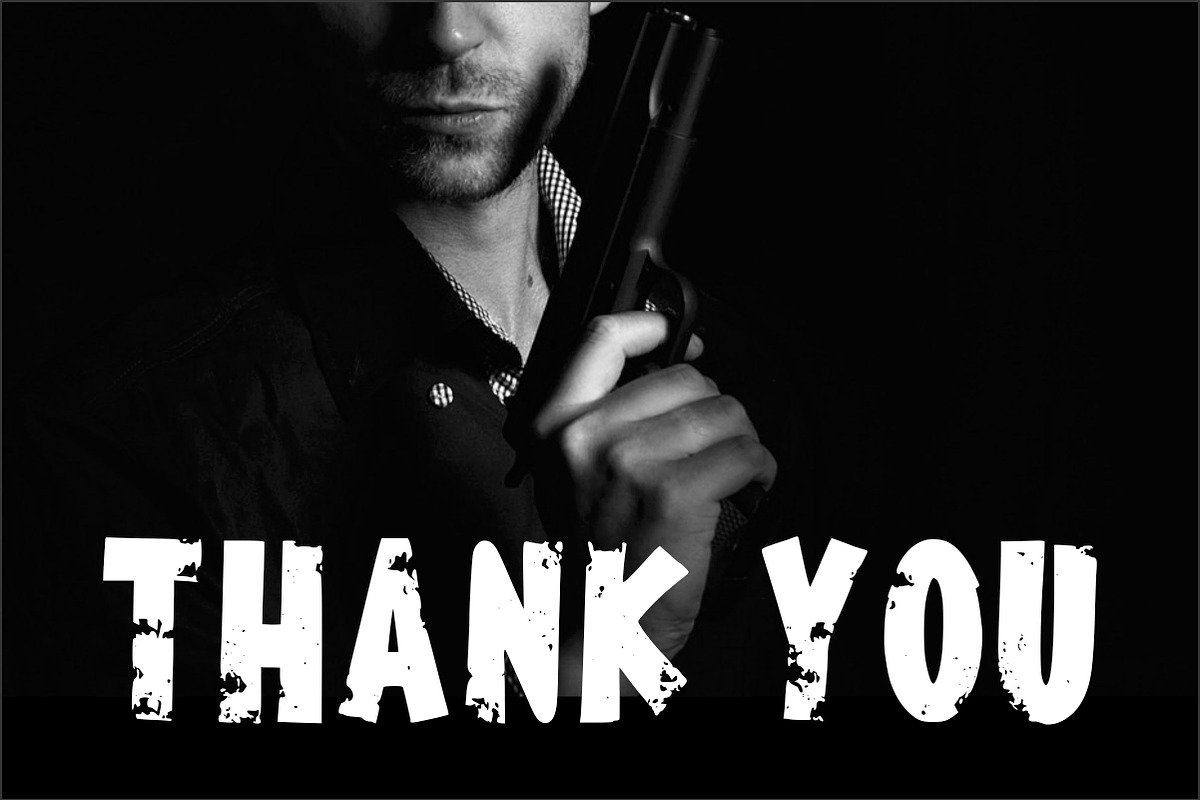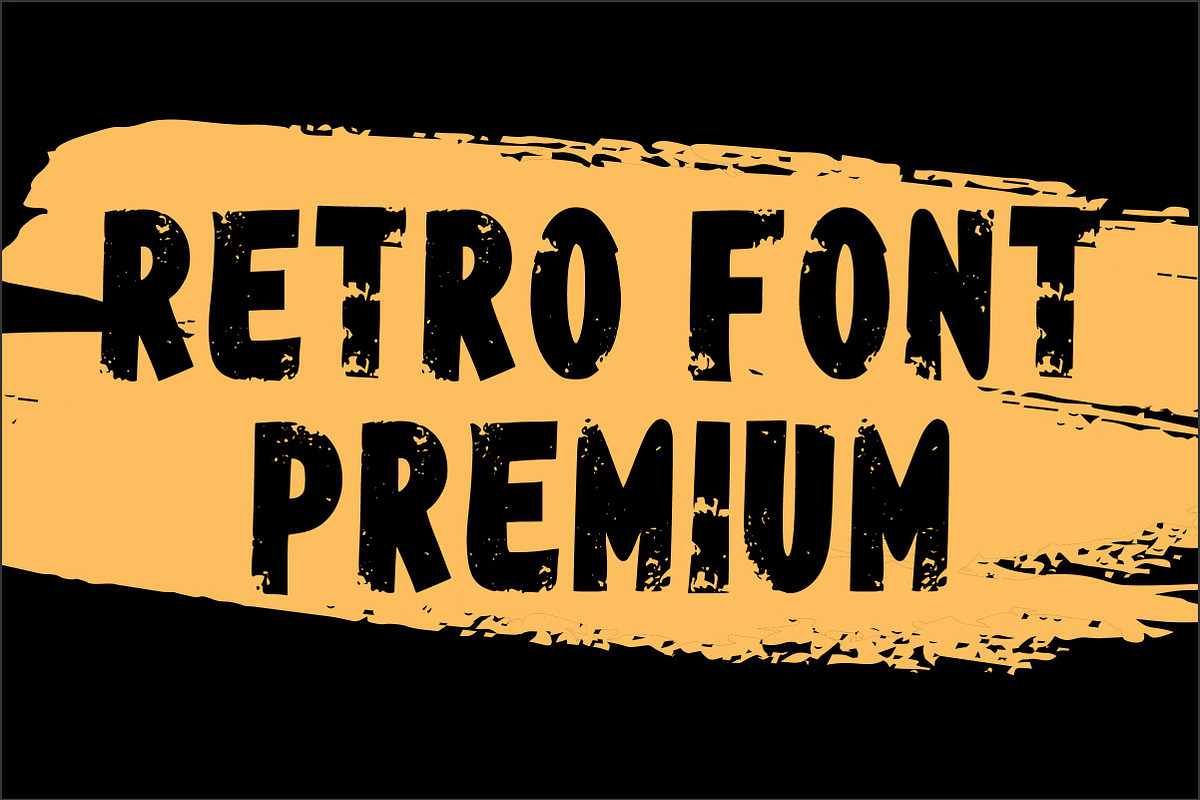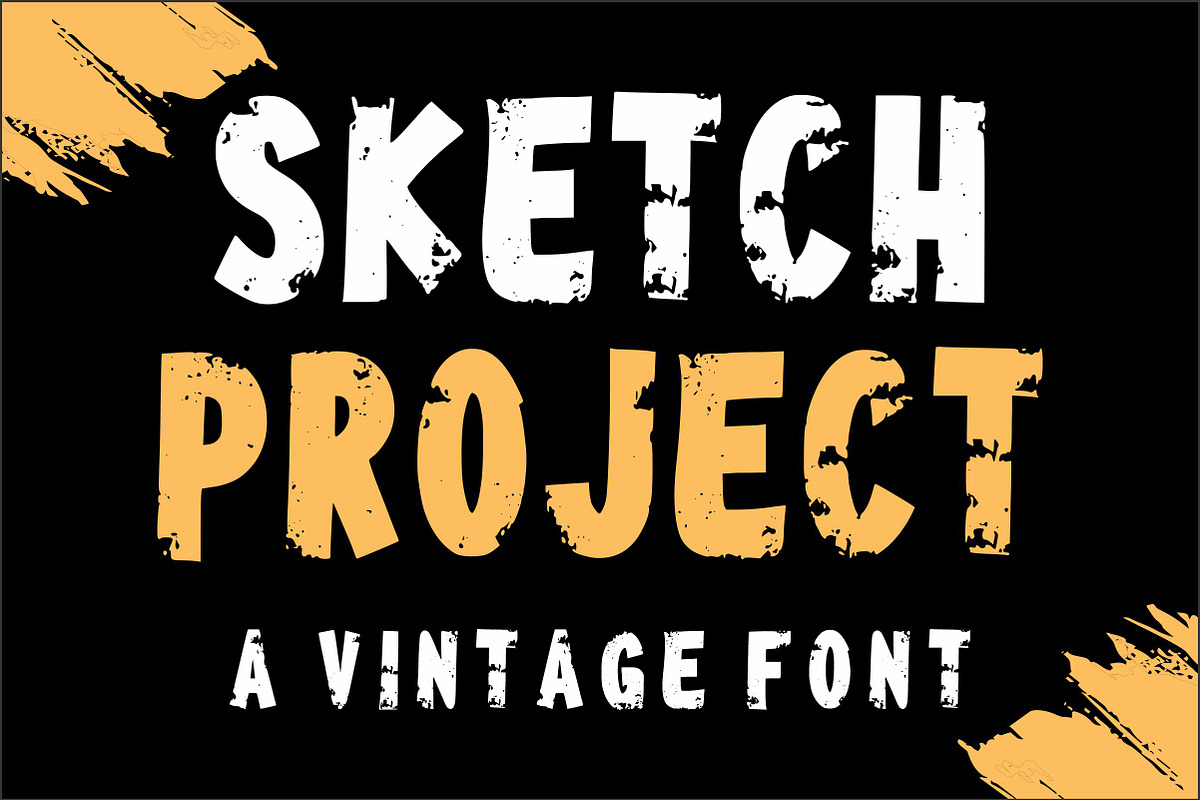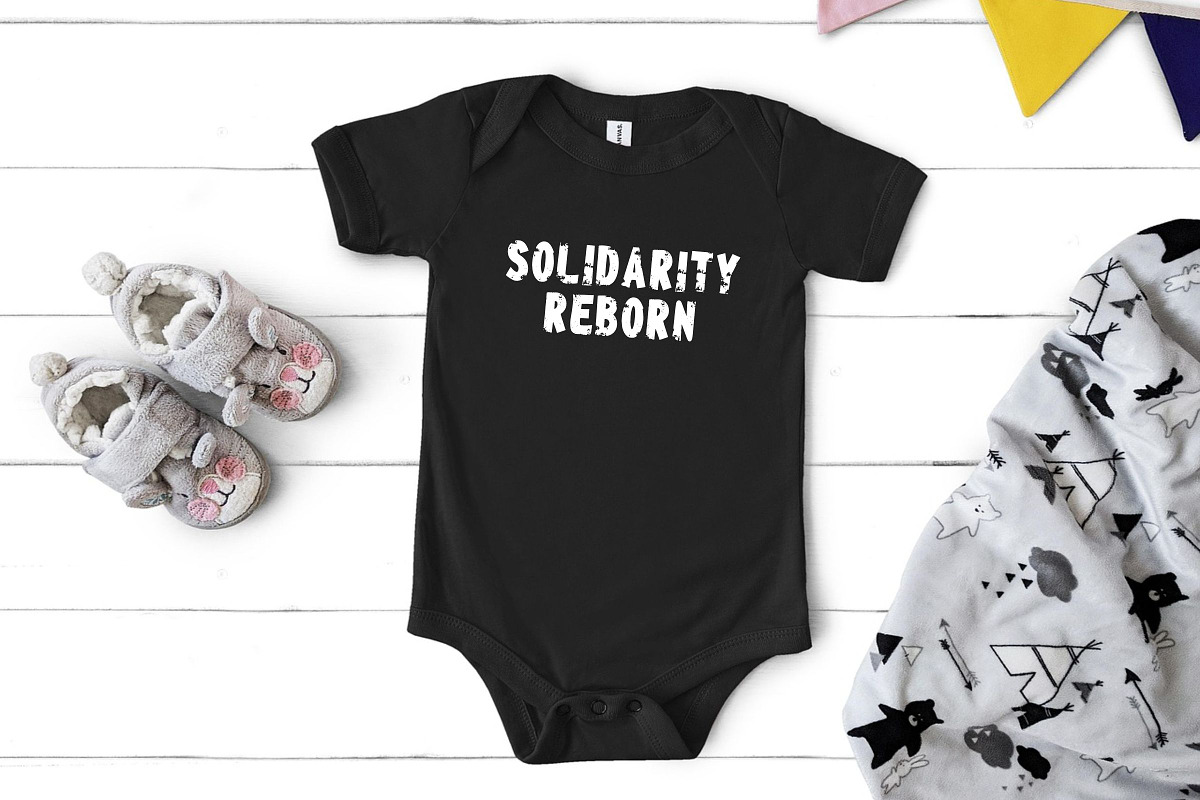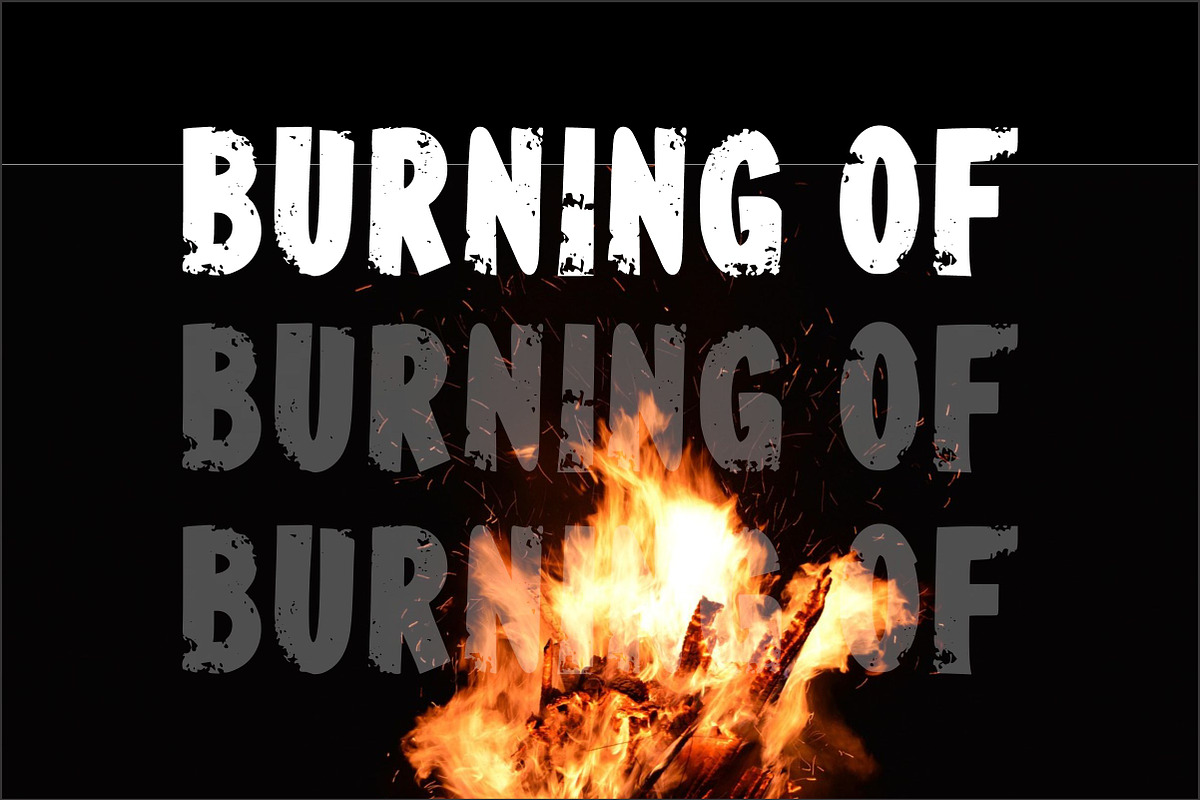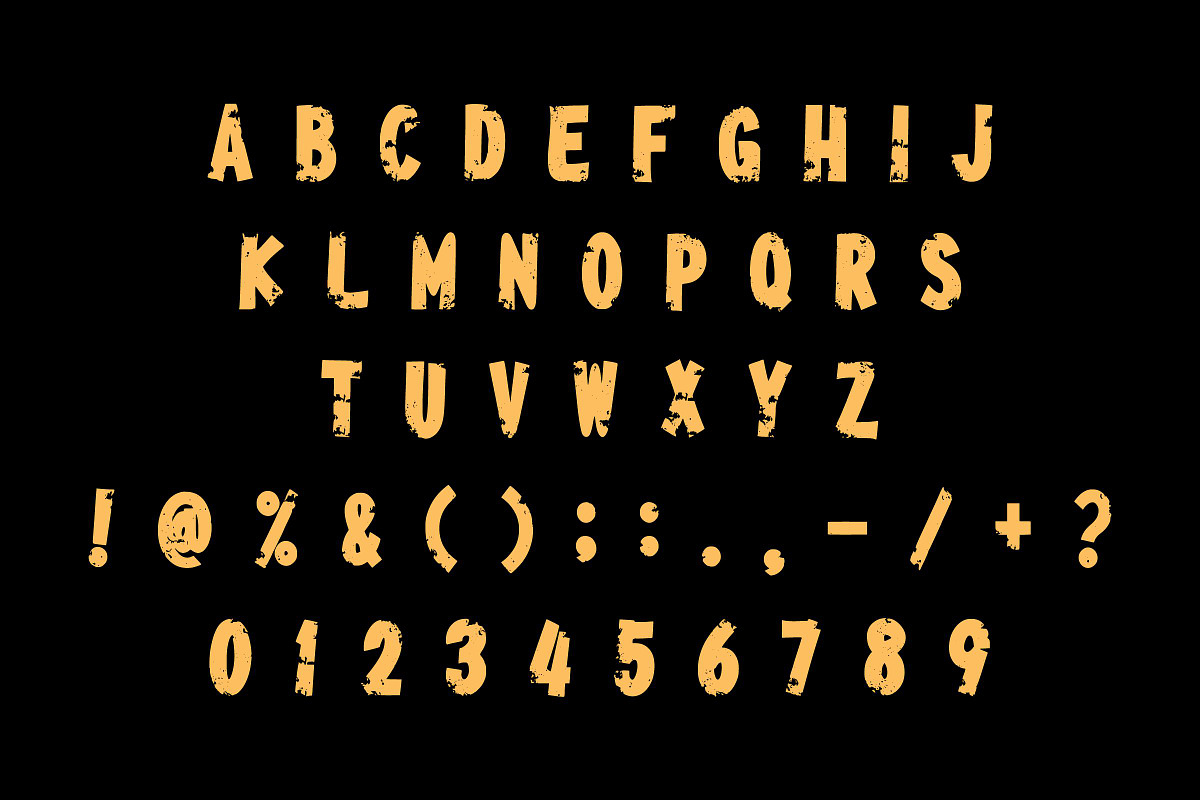
Sketch Project
Meet Sketch Project, a bold and distressed typeface that captures the raw energy of urban rebellion and underground design. This font embodies authentic grit, featuring rough textures, imperfect edges, and a fearless attitude that instantly demands attention.